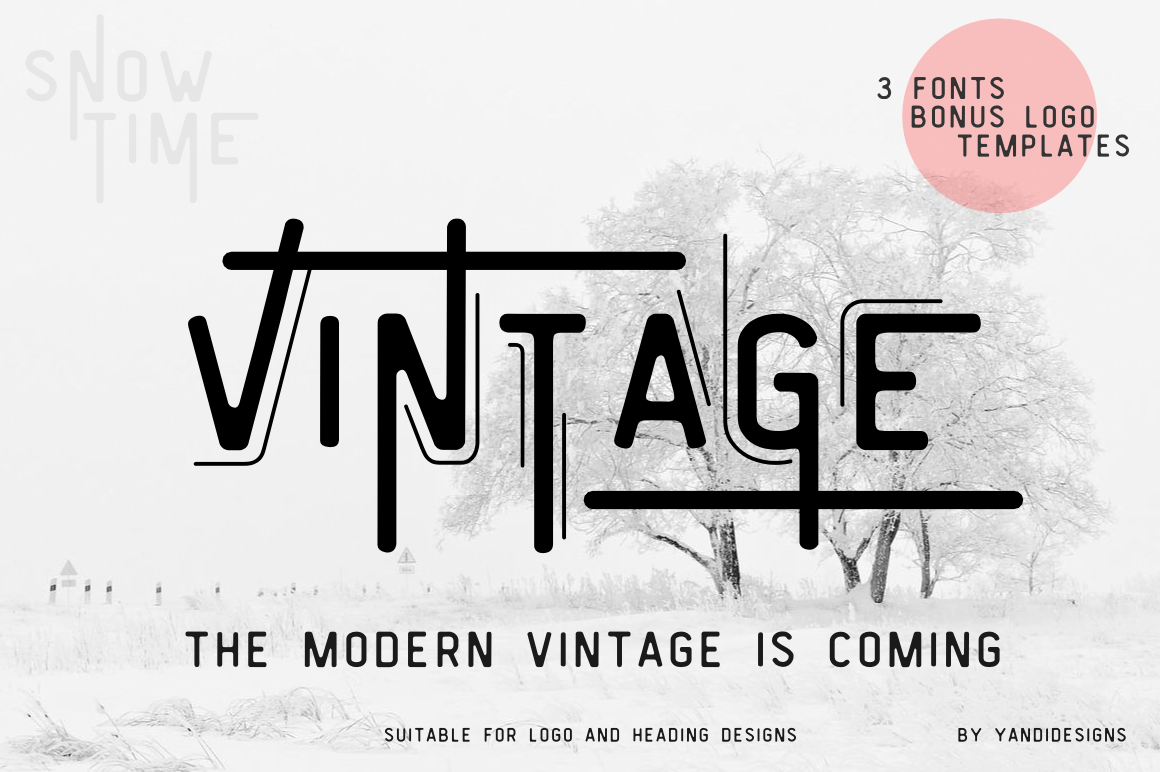
Vintage Modern Typeface
Suitable for typography, logo designs , heading, your shop presentation text and mockup etc.
Contain 3 types, basic character and numeral.
- Vintage Smooth (Smooth and round style)
- Vintage Edge (With round edge for vintage feels)
- Vintage Modern ( Combine vintage feels and digital line)